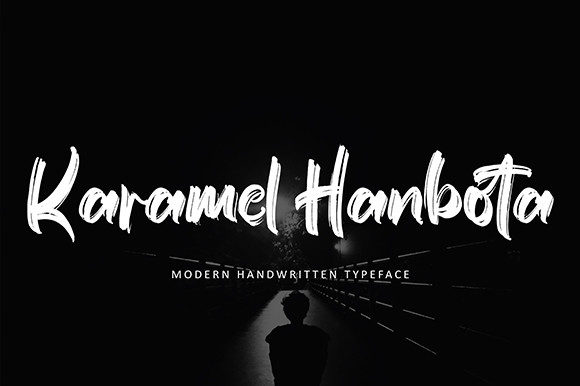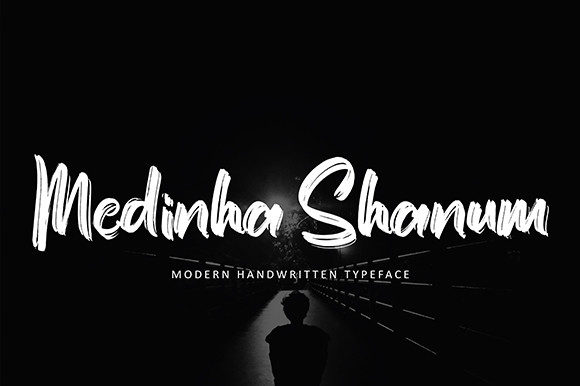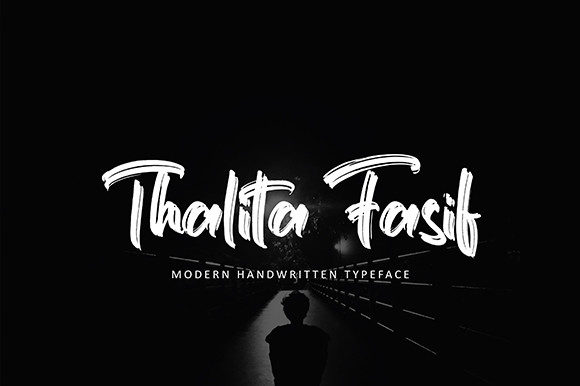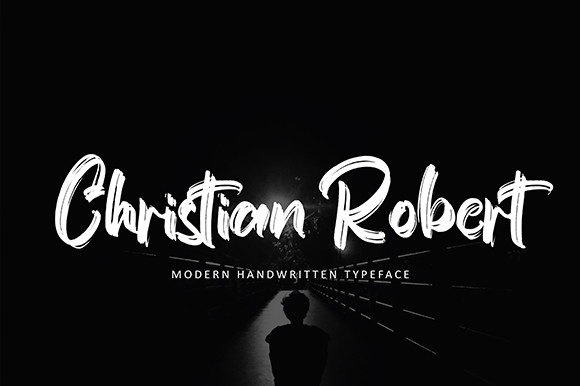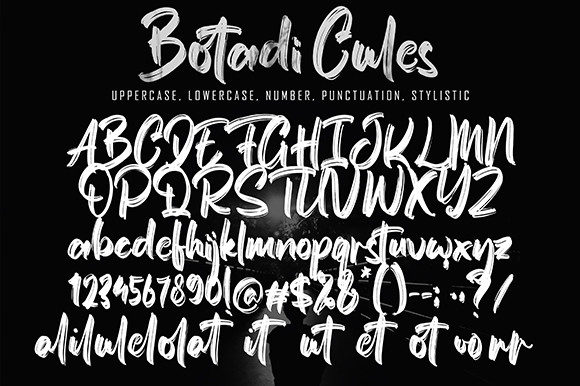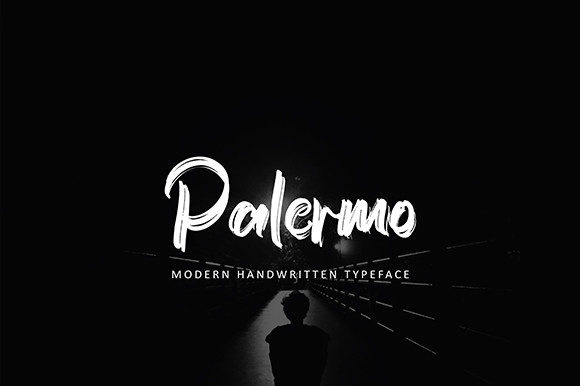
Discover the Magic of Botadi Cules Font
There’s nothing quite like the thrill of creating something new. You’re brainstorming ideas, pouring over design inspirations, and finally, the perfect concept strikes. You envision a beautiful, handwritten quote that sets the tone for your entire project. That’s exactly where the Botadi Cules Font comes in – a stylish, brushed handwritten font that elevates your designs to the next level.
This versatile font is perfect for a wide range of projects, from quotes and logos to blog headers, posters, and stationery. With its unique blend of elegance and charm, the Botadi Cules Font is sure to leave a lasting impression on your audience. For designers, this font is a valuable addition to any toolkit, offering endless possibilities for creative expression.
Botadi Cules Font Key Features
- Font Family: Botadi Cules is a unique, hand-drawn font that offers a range of styles and weights.
- Unique Characteristics: Botadi Cules features a distinctive, hand-drawn style with subtle imperfections and nuances that add to its charm and character.
Botadi Cules Font Review
Overall, I think Botadi Cules Font is a great choice for designers who want a unique and modern aesthetic. Here are some things that work well:
- ✨ The font’s bold and playful nature makes it perfect for headings and titles.
- ✨ The font’s high x-height makes it highly legible, even at smaller sizes.
- ✨ The font’s extensive character set and language support make it a great choice for global projects.
- ⚠️ The font may be too bold and playful for more formal or traditional designs.
- ⚠️ Some users may find the font’s unconventional shape and structure to be jarring or unpleasant to read.
- ⚠️ The font’s high x-height can make it difficult to use in certain contexts, such as in small paragraphs or in text that requires precise spacing.
Overall, I think Botadi Cules Font is a great choice for designers who want to add some personality to their projects. While it may not be suitable for every design, it’s a great option for those who want to take risks and try something new.
Tips for Getting the Most Out of Botadi Cules Font
To get the most out of Botadi Cules Font, consider the following tips:
- Use the font for headings and titles to add a touch of elegance.
- Combine the font with other decorative fonts to add depth and texture.
Botadi Cules Font is commonly used for:
- Special event promotions and marketing materials.
- Artistic and creative projects.